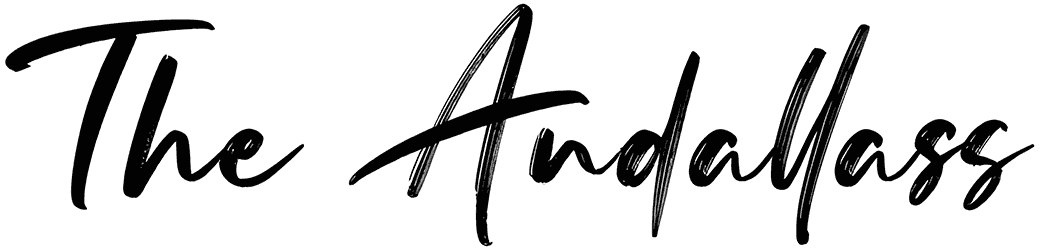
Hybridge uses angular and distorted letters to create a personal and natural feel that is made with love and can convey the feeling of warmth to your audience.
This is why the lack of small letters and numbers is not felt in it, and you can get all the charm you need by using this brush font. You can use this handwritten font in various designs with different topics, such as invitations, letterheads, and wedding cards.